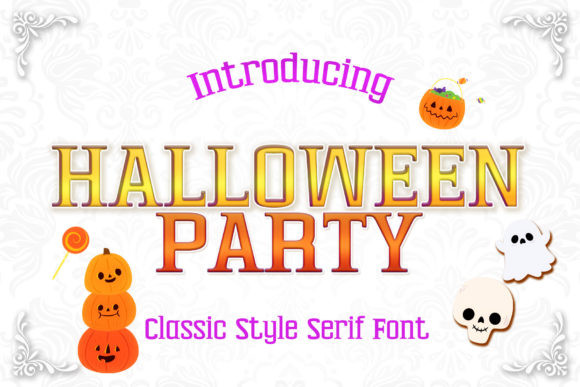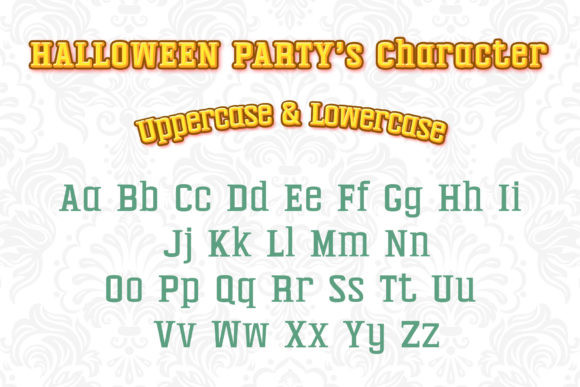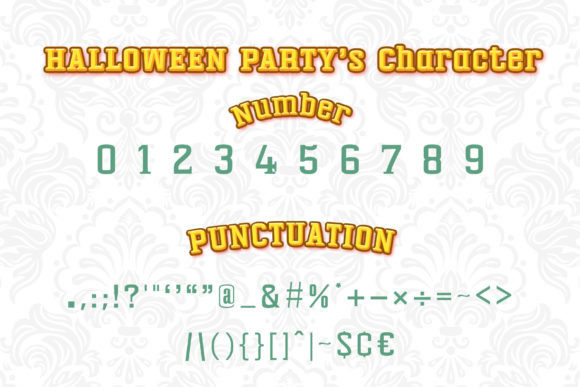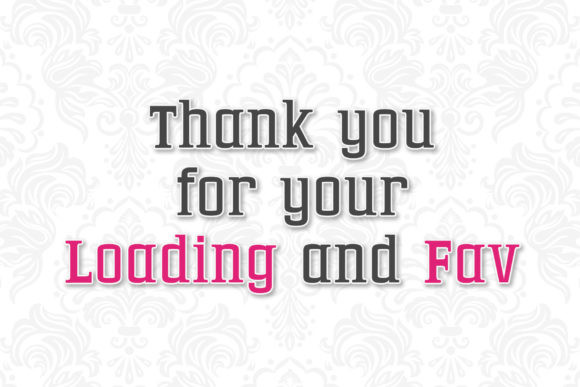
Halloween Party Font
Halloween Party is a tall and thin lettered serif font. Fall in love with its incredibly versatile style and use it to create spectacular designs!